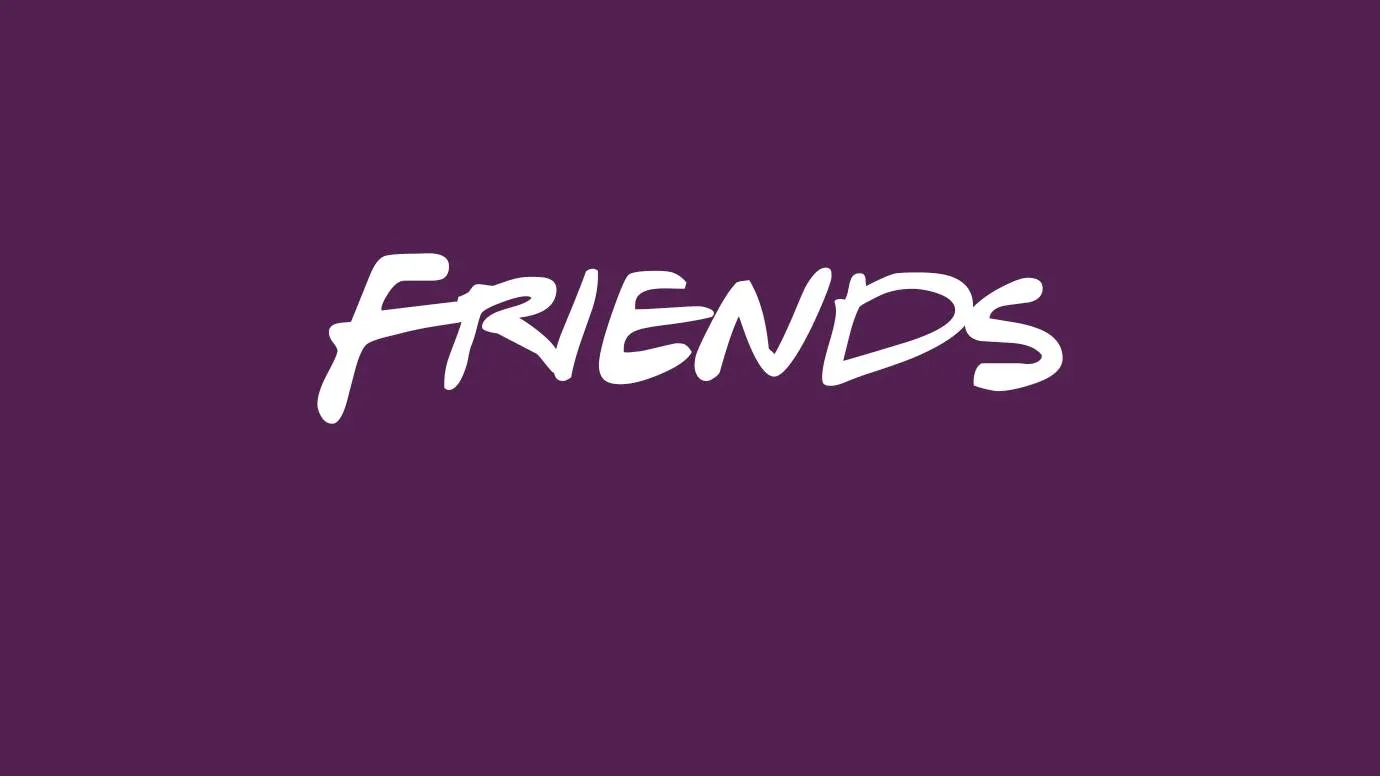
Friends Font Family is an extraordinary font. Friends is an American famous TV sitcom series that was broadcasting in late 1990. Then it became everyone’s favorite series.
The actual font used for the logo letterings is Gabriel Weiss Font that was designed by Gabriel Weiss. This amazing typeface comes in one regular style and is offering modern-type features that will be suitable for your complete design.